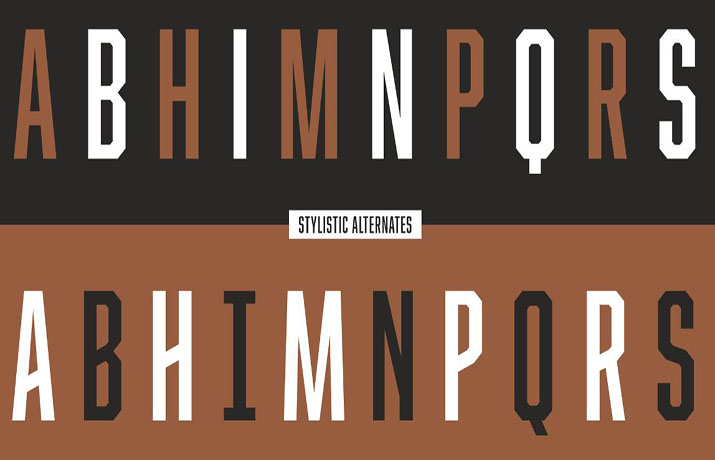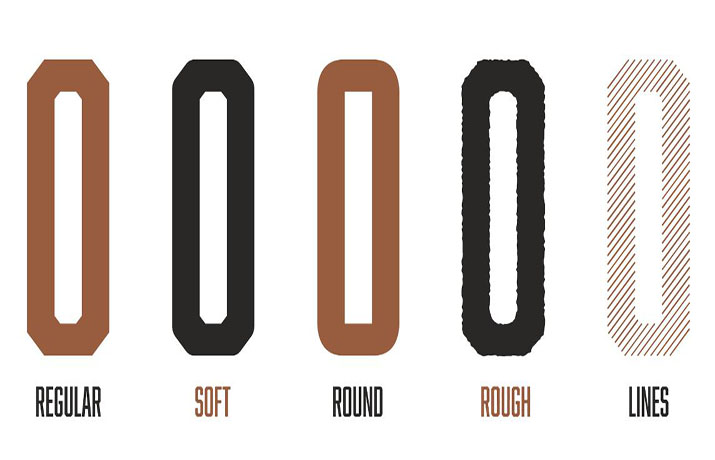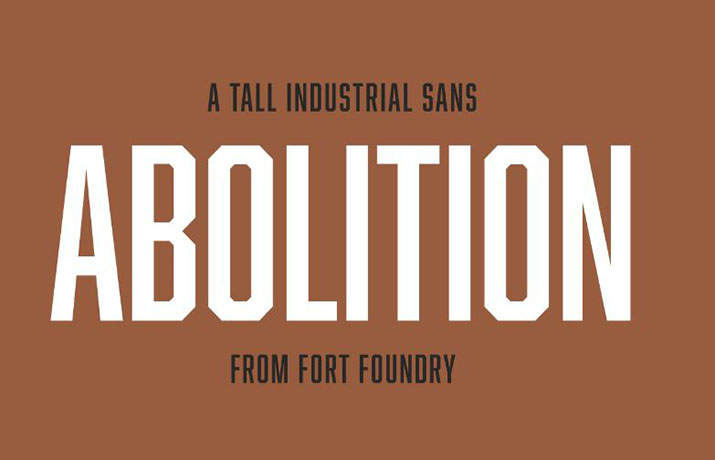
Abolition Font is a bold, condensed sans serif typeface that comes with a tall and narrow letter style. It was designed and published by Mattox Shuler of Fort Foundry.
It has a unique feature in the letters including sharp geometric shapes, flat sides, and angled corners. But one main feature is its height is extra large which makes it unique from the others.
Due to its condensed and narrow letter shape, you can use it for various creative projects like posts, headlines, logos, branding, packaging, app design, websites, banners, titles, and more.
“[Abolition typeface comes in 10 different versions along with Open Type file formats. This font includes 67 glyphs, stylistic alternates, and multiple language support]”.
| Style: | Sans Serif, Condensed, Display |
- Its bold structure makes it possible to produce excellent designs. It will assist you in producing book covers, distinctive logos, game graphics, product design, banners, advertising, invites, special event cards, and many other outstanding sectors.
This font supports 34 multilingual languages.